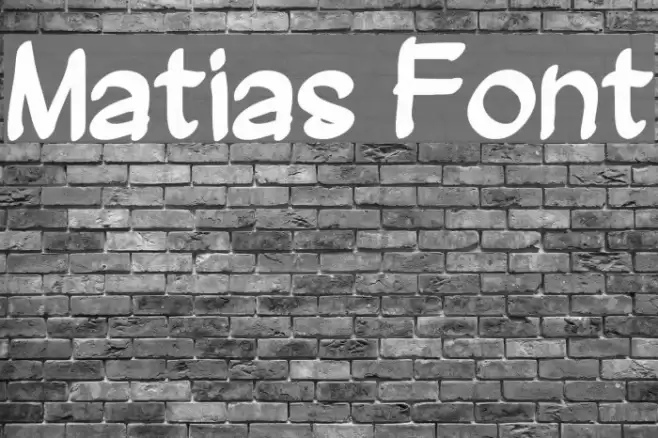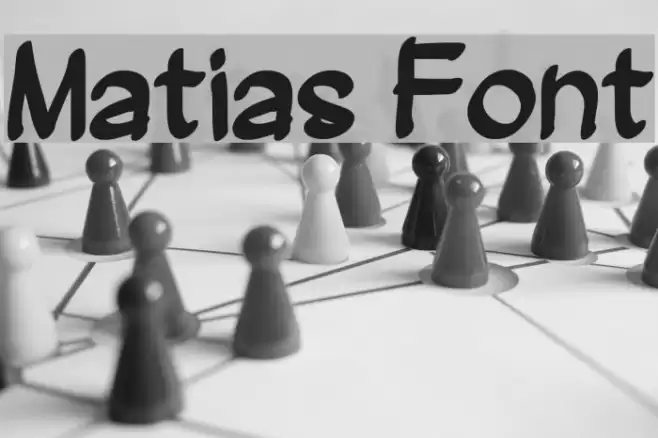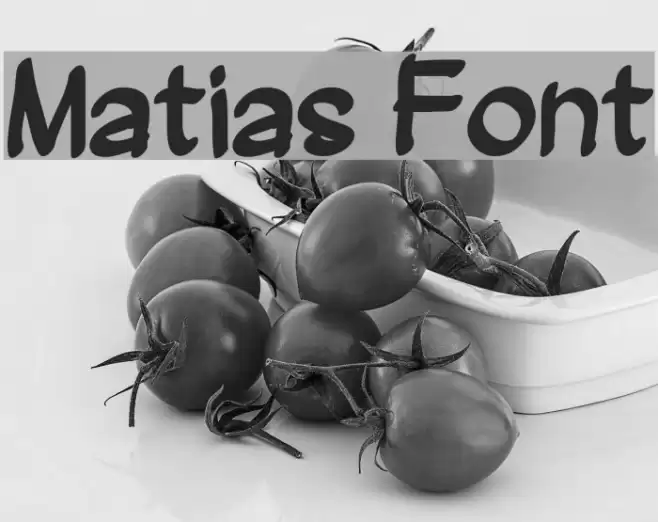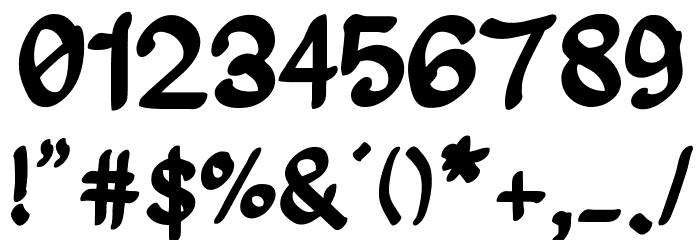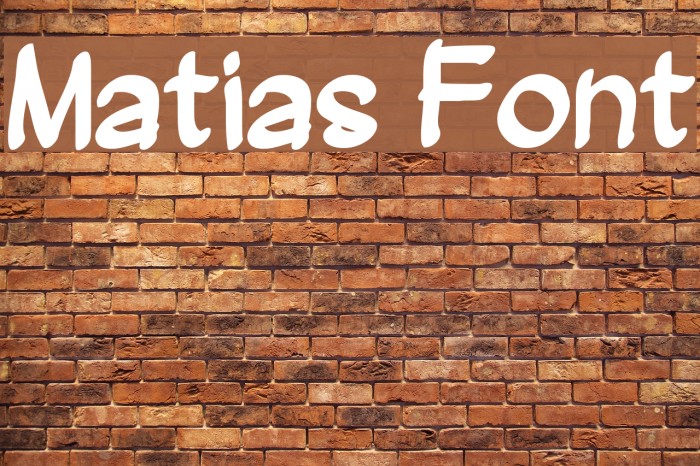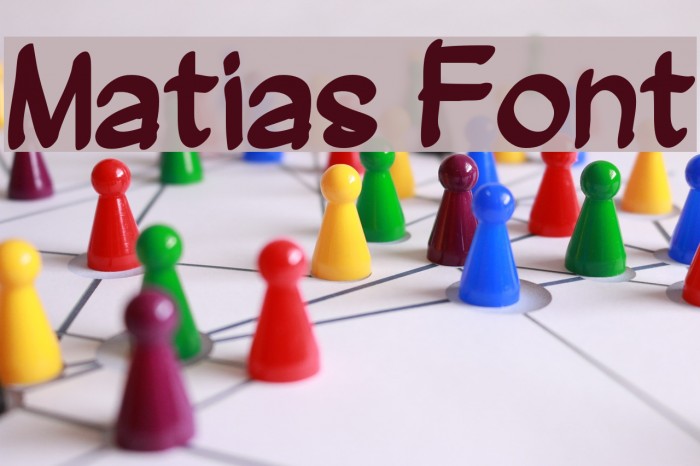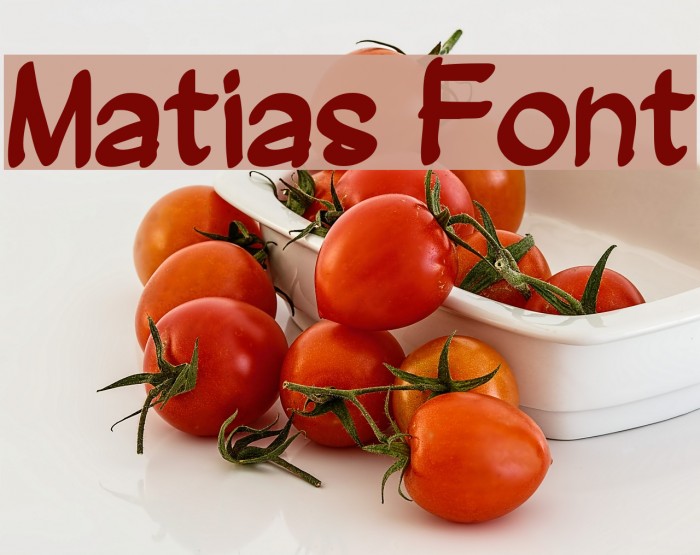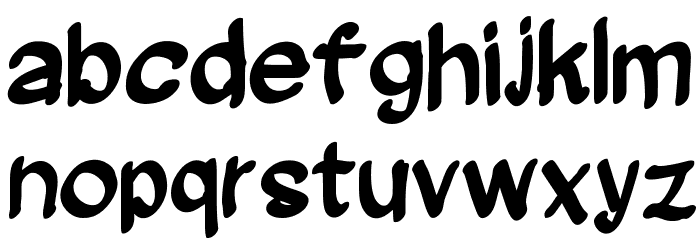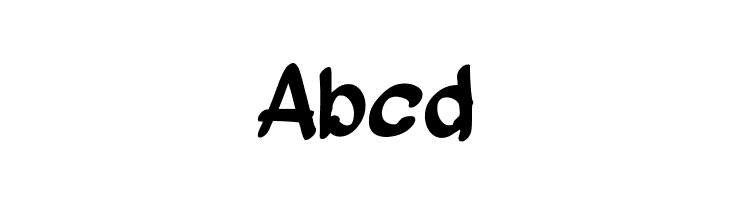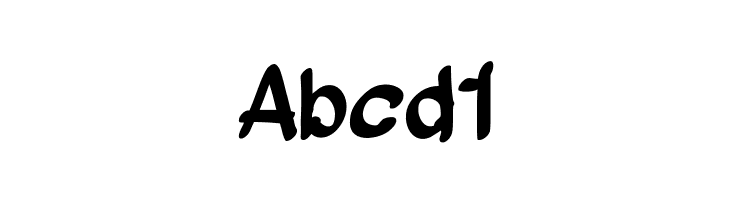
Matias Font Font
Matias Font Description
This font features a playful and bold handwritten style, characterized by its thick, rounded strokes and slightly irregular shapes. The uppercase letters are prominent and maintain a consistent height, while the lowercase letters exhibit a charming, casual flow. The numbers are bold and easy to read, matching the overall playful aesthetic. Special characters are well-integrated, maintaining the font's cohesive look. This font exudes a friendly and approachable vibe, making it suitable for projects that require a personal touch.
A bold, playful handwritten font with rounded strokes and a casual style from Uncategorized fonts.
- Proposed Projects: Ideal for children's books, playful branding, greeting cards, and informal invitations.
- Overall Style: Playful
- Use Case: Logos, Headlines, Informal Text